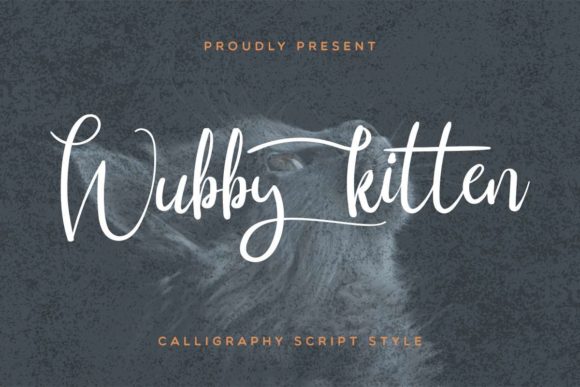
Wubby Kitten Font
Wubby Kitten is inspired by classic typography and brings its own unique style to any design project. This handwritten font will elevate a wide range of design projects to the highest level, be it branding, headings, wedding designs, invitations, signatures, logos, labels, and much more!